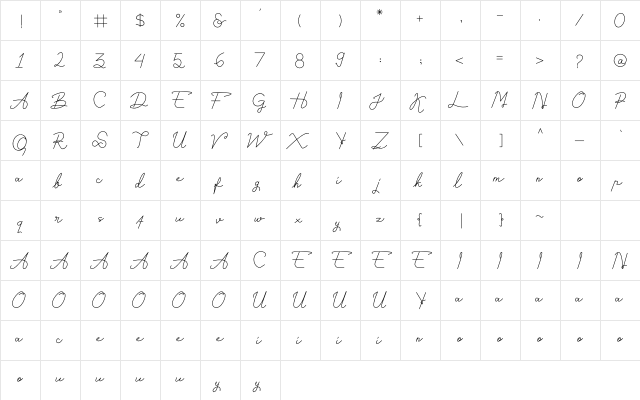
Astamaya Regular
Design Context for Astamaya Typeface
Astamaya is a composed and adaptable typeface that performs quietly and consistently across a wide range of design contexts.